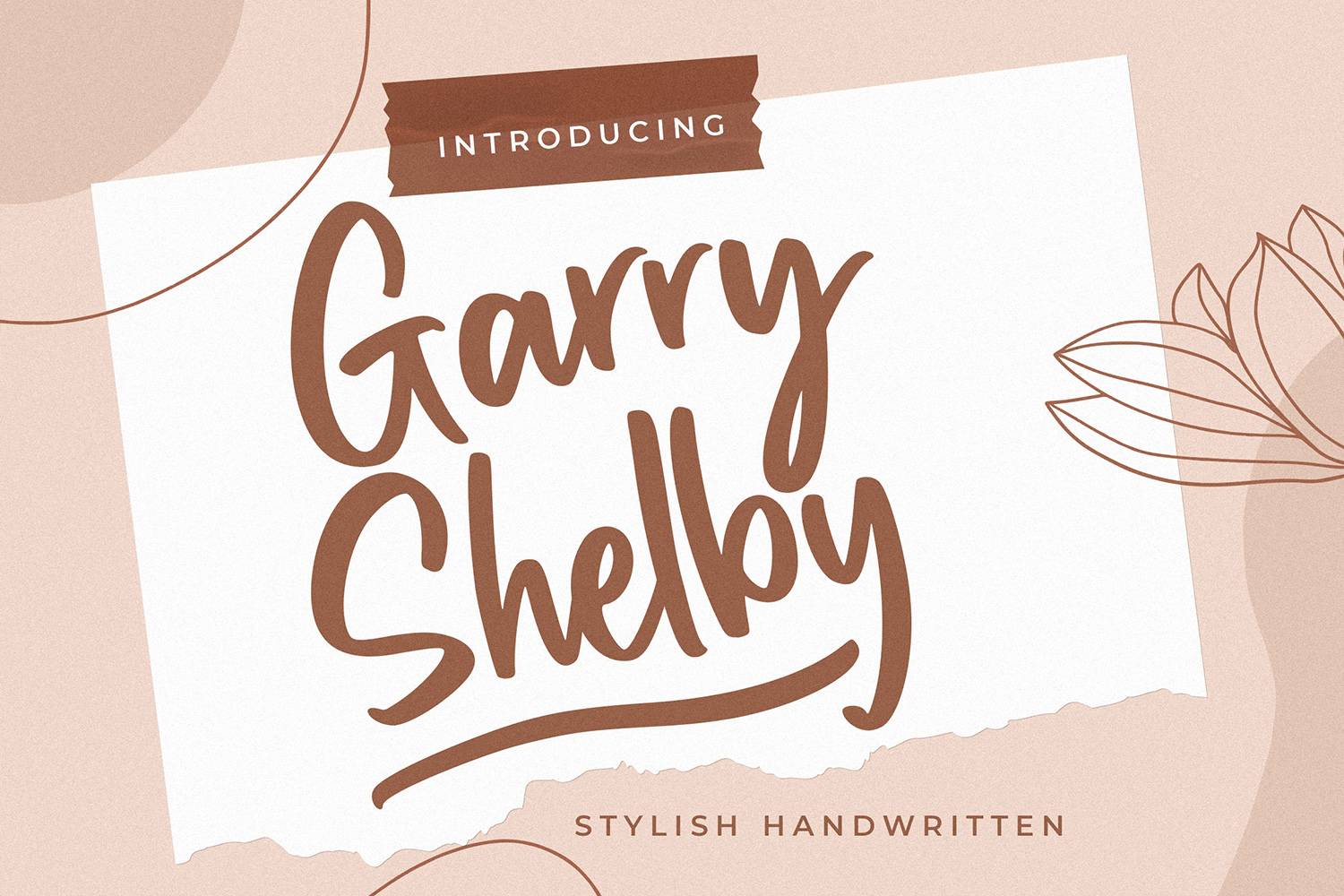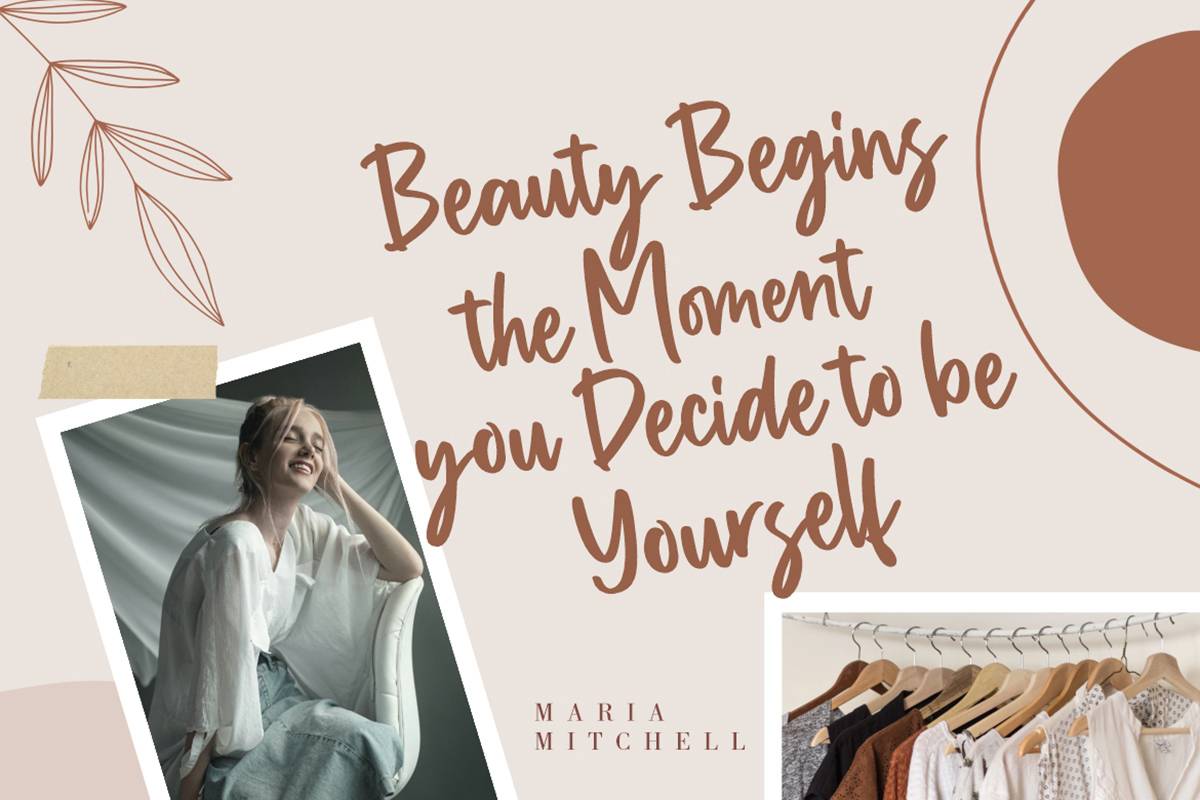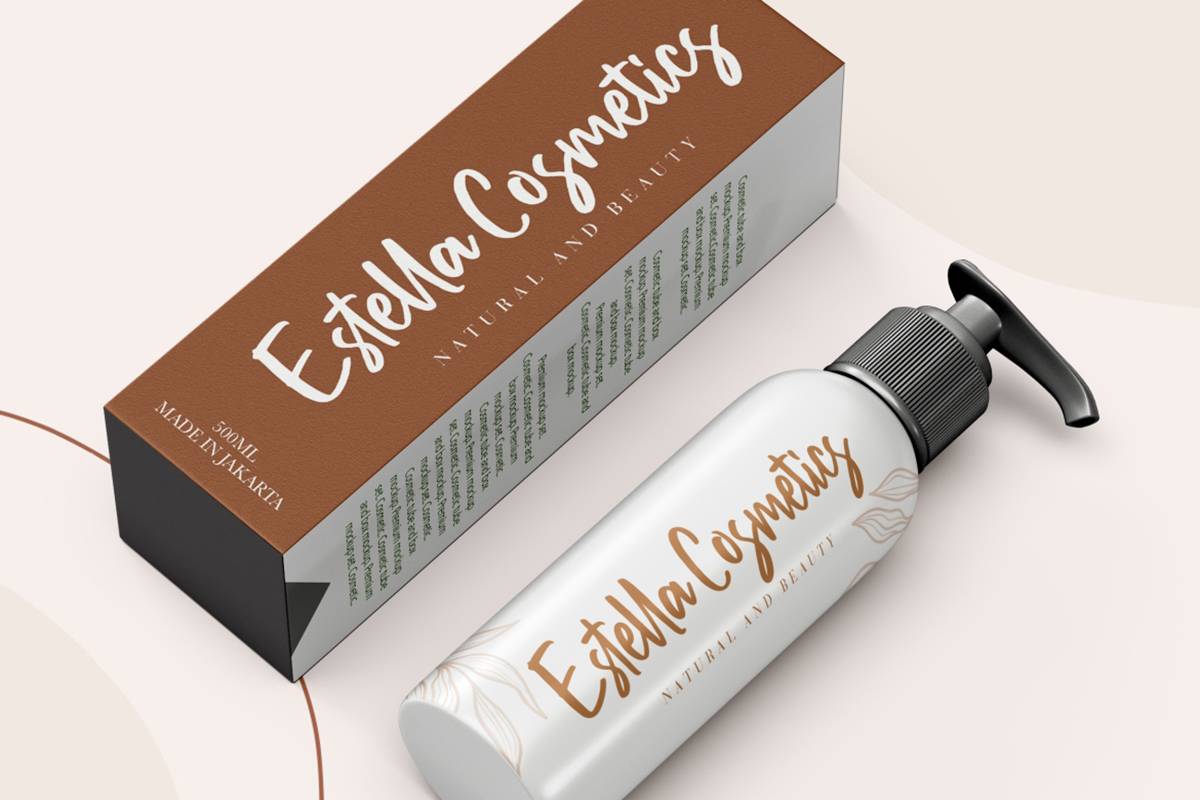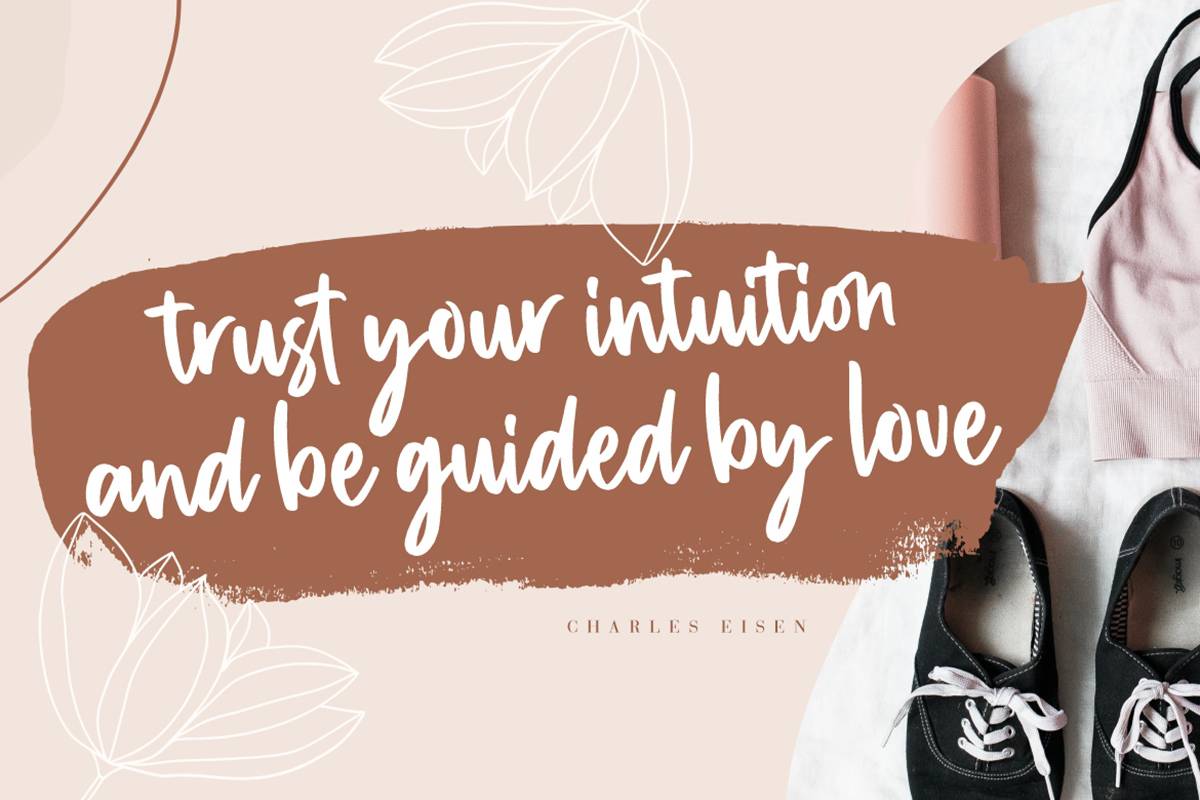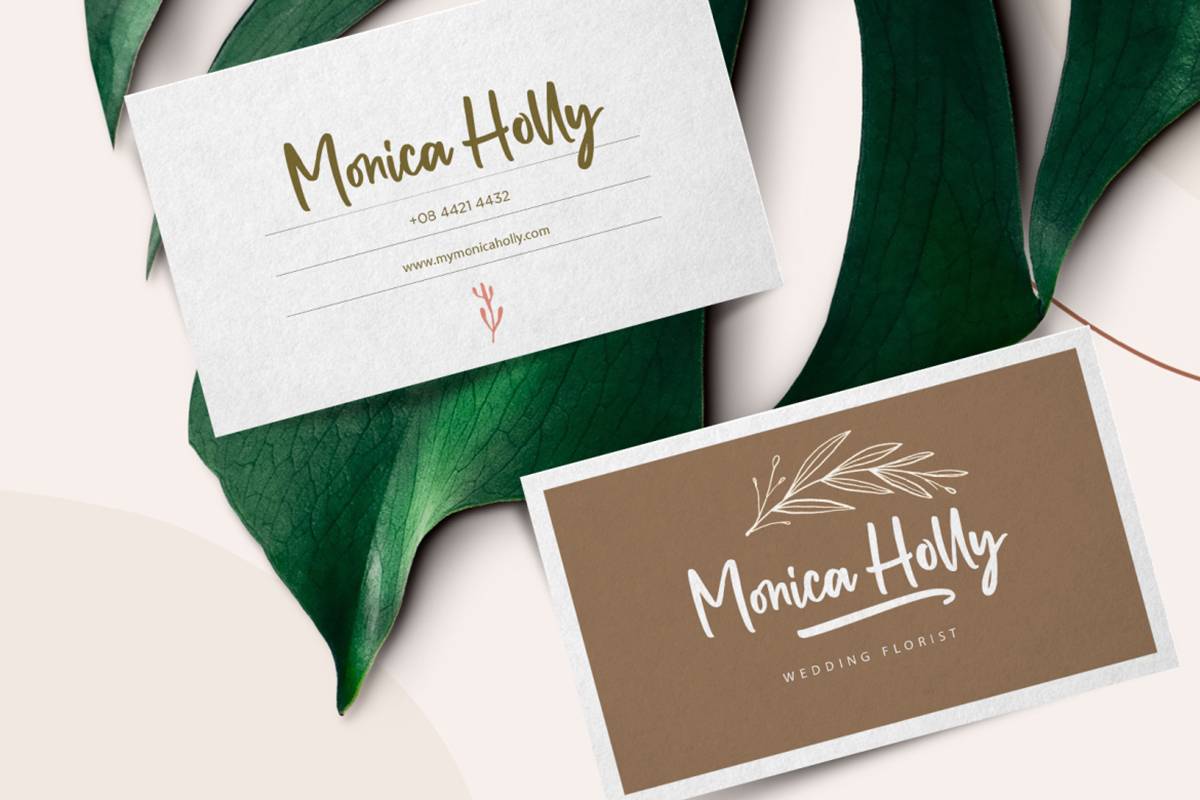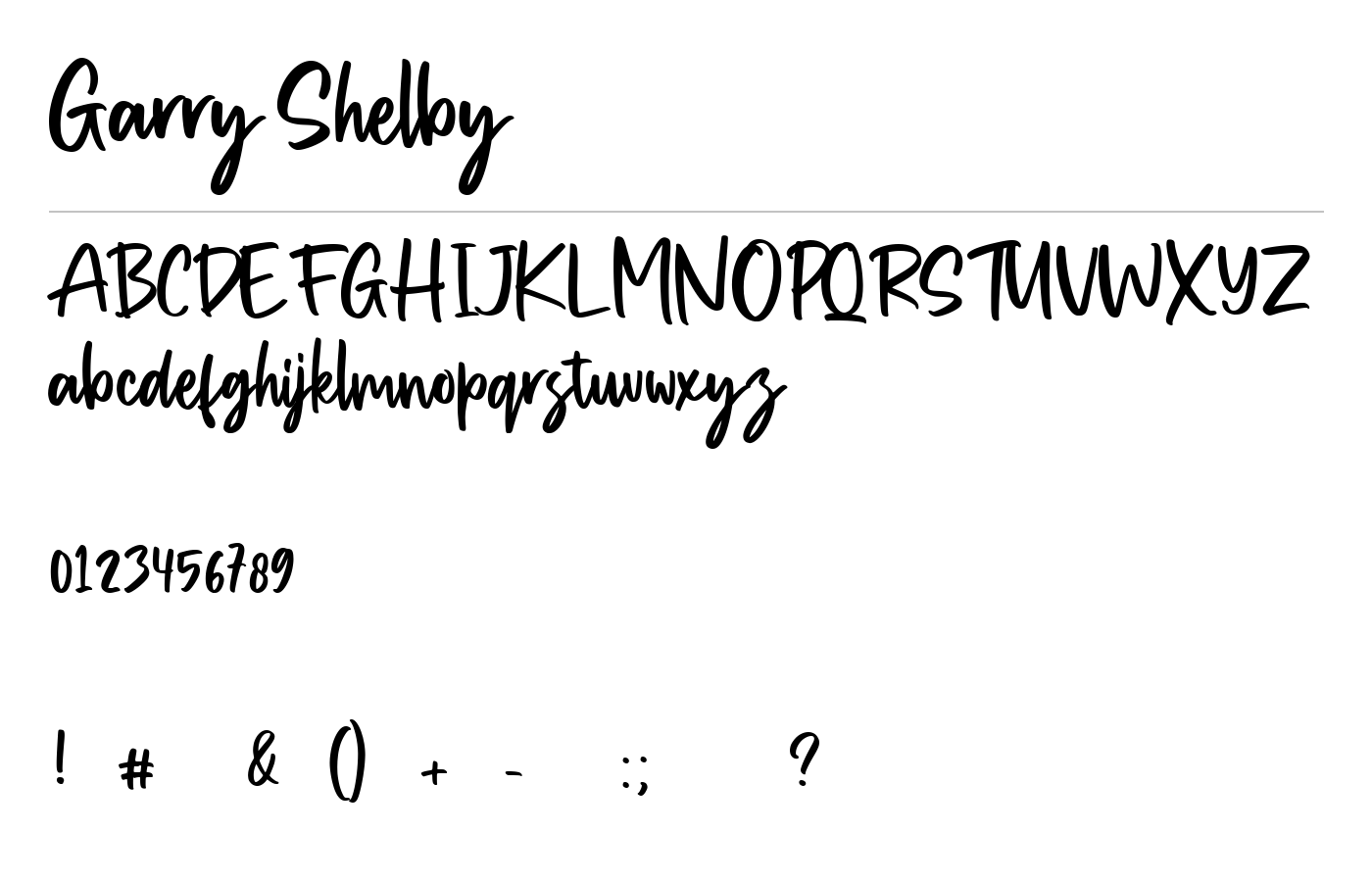
Garry Shelby is a lively handwritten script font with a casual, friendly feel. Its medium weight and slightly condensed letterforms give it an approachable yet confident look, making it perfect for creative branding, invitations, and playful headlines. The natural brush stroke style adds a personal touch, ideal for projects that want to convey warmth and personality.
Garry Shelby Font
About Garry Shelby Font